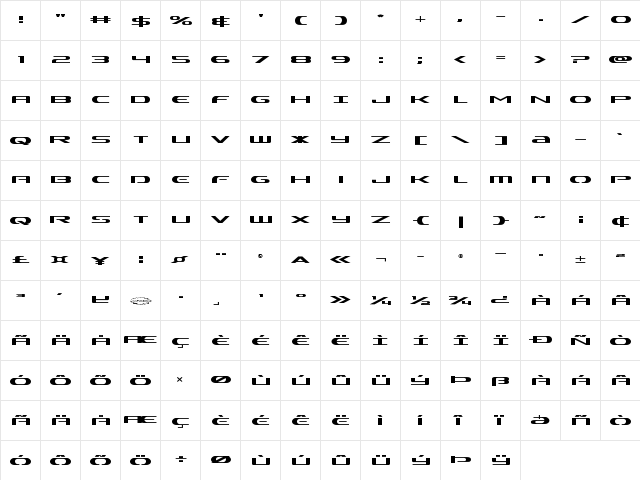
Alpha Men Expanded Expanded
Design Context for Alpha Men Expanded Typeface
Alpha Men Expanded is a composed and adaptable typeface that performs quietly and consistently across a wide range of design contexts.